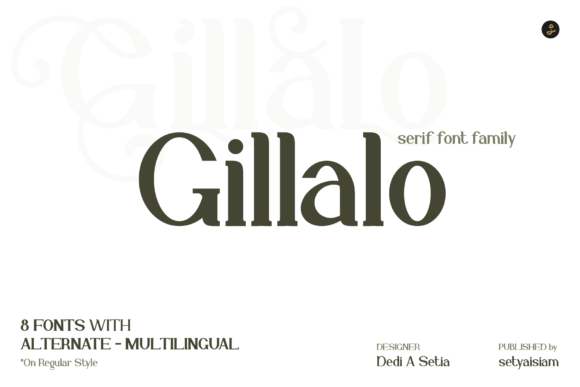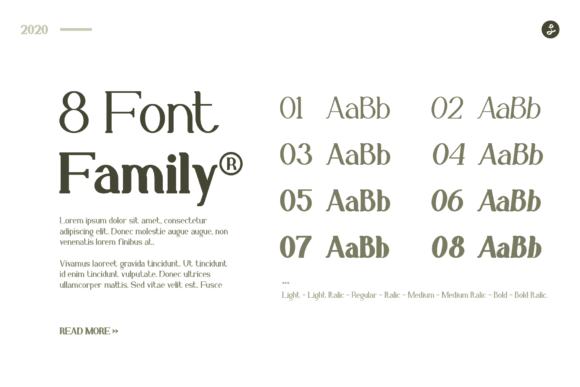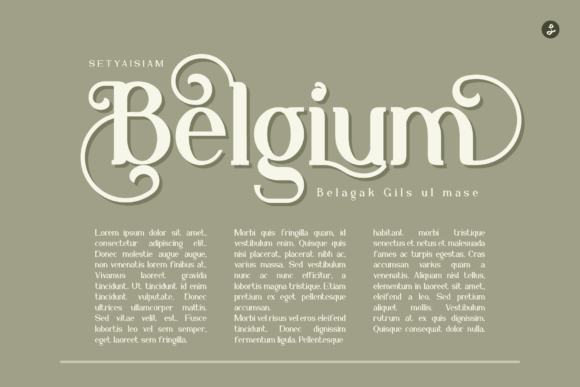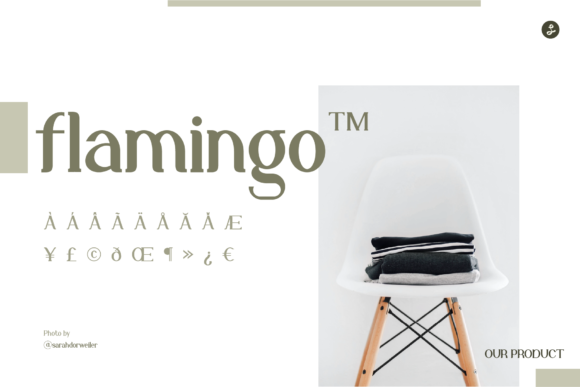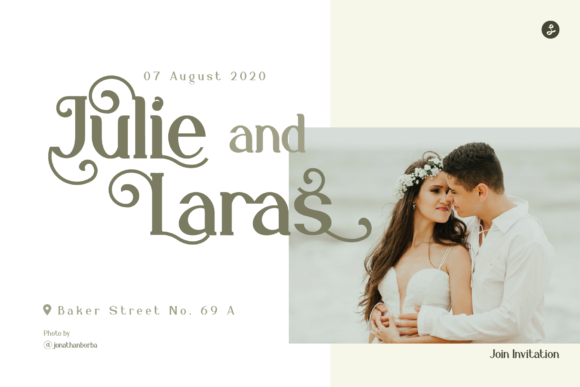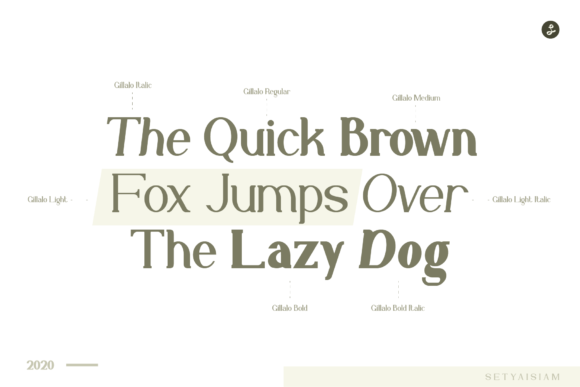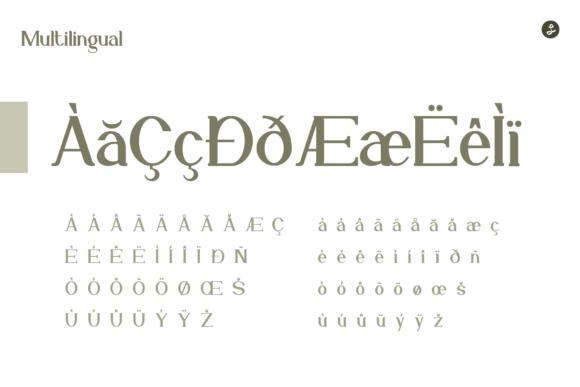
Discover the Timeless Charm of Gillalo Font
You know that moment when you’re working on a design project and you can’t quite put your finger on the right font to capture the essence of your idea? The struggle is real, but don’t worry, we’ve got you covered! Today, we’re excited to introduce you to Gillalo Font, a stunning serif font that’s sure to add a touch of elegance and sophistication to any design project.
Gillalo Font is the perfect choice for designers who want to create a charming and timeless visual identity. Its bold and refined features make it an ideal selection for projects that require a classic and sophisticated look. Whether you’re working on a wedding invitation, a luxury brand brochure, or a vintage-inspired poster, Gillalo Font is sure to bring a touch of refinement and sophistication to your design.
Gillalo Font Key Features
- Font Family: Gillalo comes in multiple font styles, including Gillalo Regular, Gillalo Italic, Gillalo Bold, and Gillalo Bold Italic.
- Character Set: The font includes a wide range of characters, including Latin, Cyrillic, and Greek alphabets, as well as punctuation marks and symbols.
- Unique Characteristics: Gillalo Font features a unique blend of modern and classic design elements, making it perfect for use in corporate branding, advertising, and editorial design.
Gillalo Font Review
I recently had the chance to work with the Gillalo font, and I must say it’s been a mixed bag. On the positive side, I’ve found it to be ✨ incredibly versatile ✨. It works well in a variety of contexts, from body text to headlines. The font’s clean design and subtle flair make it a great choice for projects that require a touch of elegance.
- ✨ Easy to read, even at small sizes ✨
- ✨ Works well in both digital and print formats ✨
- ✨ A great choice for projects that require a touch of sophistication ✨
However, there are some limitations to the Gillalo font that I’ve encountered. The main issue is that it can be a bit too playful at times, which may not be suitable for all projects. Additionally, the font’s weight range is somewhat limited, which can make it difficult to create complex typographic arrangements.
- ⚠️ May not be suitable for projects that require a more serious tone ⚠️
- ⚠️ Limited weight range can make it difficult to create complex typography ⚠️
Overall, I’d say the Gillalo font is a solid choice for designers who need a versatile and elegant font. However, it may not be the best fit for every project, and designers should carefully consider the font’s limitations before making a decision.
Tips for Getting the Most Out of Gillalo Font
Use Gillalo Font for:
- Headings and titles for its unique, eye-catching style.
- Emphasizing key points or calls-to-action.
- Creating a consistent brand identity.
Gillalo Font is ideal for:
- Graphic design projects.
- Presentations and reports.
Alternatives to Gillalo Font
Comparison to Gillalo Font: Pacifico Font has a more elegant and refined feel compared to Gillalo Font, which is more playful and cursive. Pacifico Font is better suited for formal designs, while Gillalo Font is more versatile and can be used in a variety of contexts.
Comparison to Gillalo Font: Great Vibes Font has a more refined and polished feel compared to Gillalo Font, which is more playful and cursive. Great Vibes Font is better suited for formal designs, while Gillalo Font is more versatile and can be used in a variety of contexts.